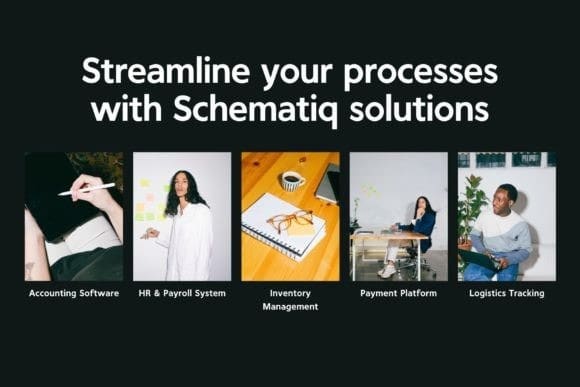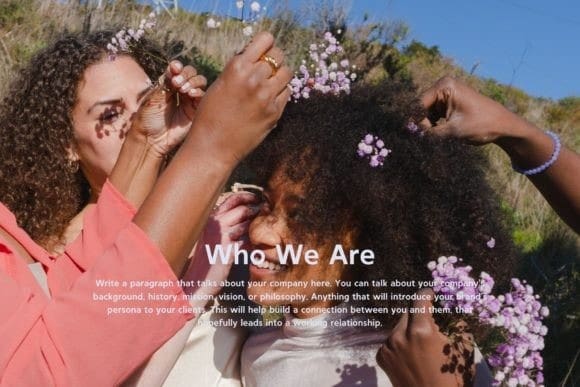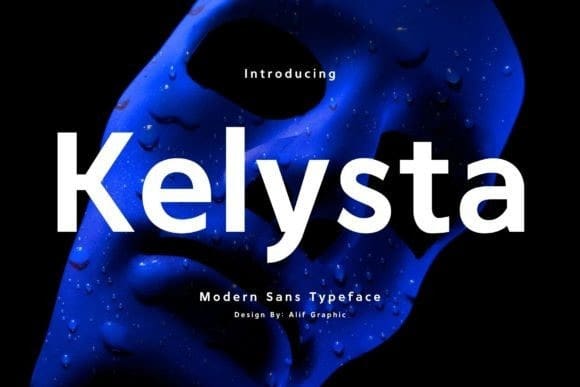
Kelysta Font
Kelysta Font, a beautiful sans serif font that effortlessly blends simplicity with elegance. With clean lines and a modern aesthetic, Kelysta is versatile, making it an excellent choice for a wide range of design applications. Whether you’re crafting a sleek logo, refined headlines, or minimalist branding, Kelysta adds a touch of sophistication to your typography. Elevate your designs with this effortlessly chic sans serif font, where beauty meets clarity.